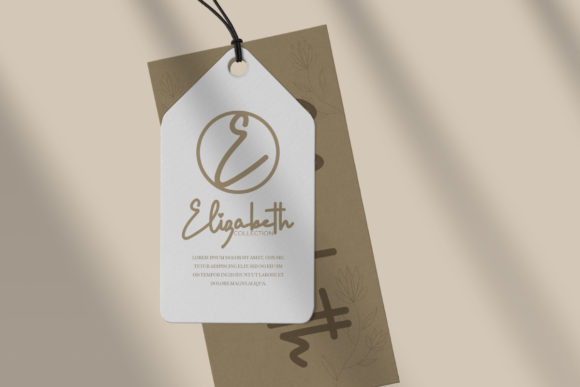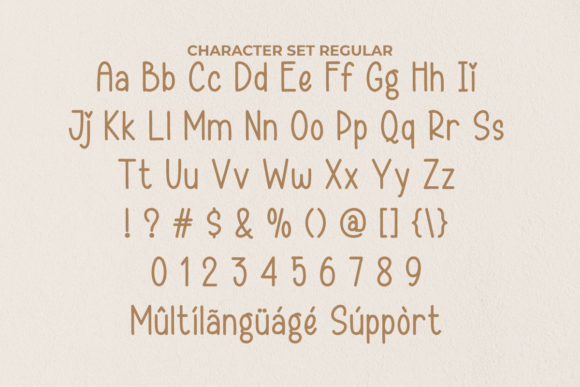
About Good Memories Font
Good Memories is a font duo with two styles: regular handwriting and signature script. This font will be awesome for logos & branding, wedding designs, product designs.